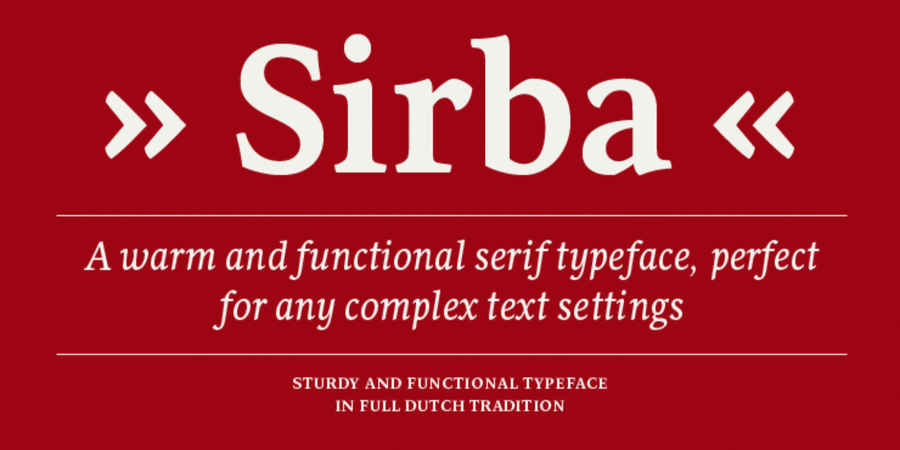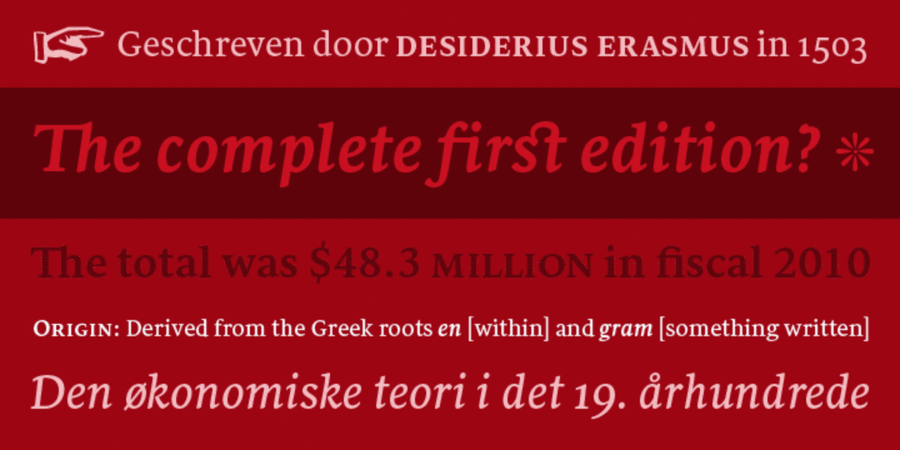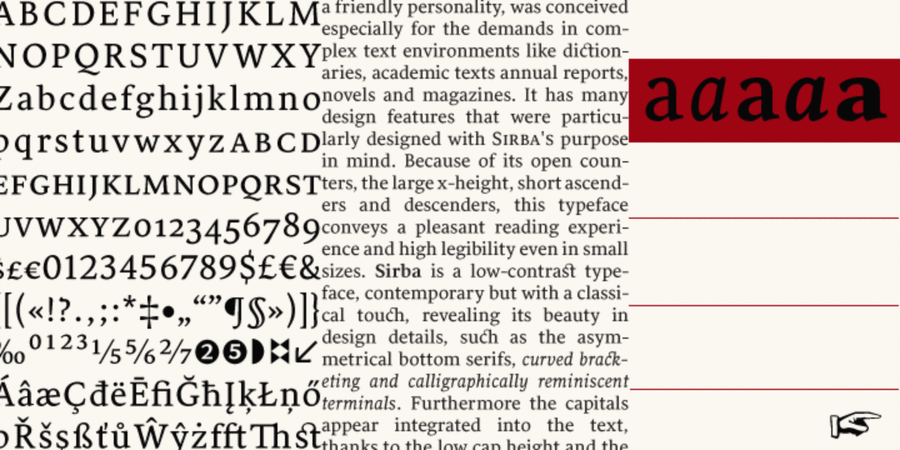
About Sirba CYRSirba, a seriffed typeface family with a friendly personality, was conceived especially for the demands in complex text environments like dictionaries, academic texts annual reports, novels and magazines. It has many design features that were particularly designed with Sirba’s purpose in mind. Because of its open counters, the large x-height, short ascenders and descenders, this typeface conveys a pleasant reading experience and high legibility even in small sizes. Sirba is a low-contrast typeface, contemporary but with a classical touch, revealing its beauty in design details, such as the asymmetrical bottom serifs, curved bracketing and calligraphically reminiscent terminals. Furthermore the capitals appear integrated into the text, thanks to the low cap height and the constant width of all tabular numbers between the weights make this typeface very usable in annual reports and tables. Sirba is available in the four classic styles plus a special heavy (Black) version, which is particular in that its proportions are designed so the counters remain big enough when set in very small text sizes. This means that Sirba Black’s spacing and letter width are rather generous in comparison to other typefaces of that colour. This ensure excellent legibility. During the design of the typeface family much attention was given to the italic and regular as counterparts of each other. The italic distinguishes itself just enough while reading without creating strange spots within the text when looking at the text as a whole. Sirba CYR’s character set covers over 80 languages that use the Latin, Cyrillic script plus Polytonic Greek and a full set of phonetic symbols. It also includes many typographical niceties, such as a set of arrows, ornaments, extended ligatures, small caps, 5 sets of numerals and more. Intensive study of typefaces from the period of letterpress printing used in bibles and dictionaries, in particular for small type sizes, and the understanding of the typefaces’ “secrets”, influenced the design and concept of Sirba to a great extend. The typeface was designed by Nicolien van der Keur in 2010.